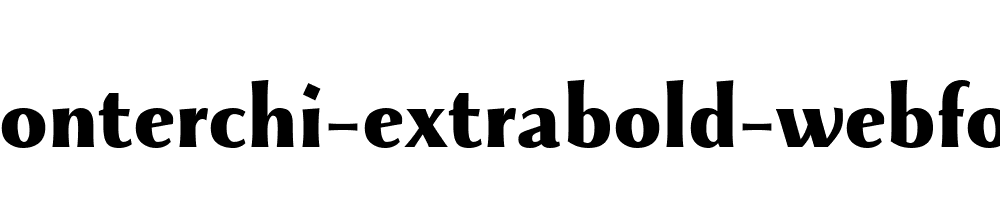
About monterchi-extrabold-webfont
The Monterchi Extrabold Webfont is a striking typeface designed by a skilled typographer. Its bold weight commands attention, making it perfect for headlines and branding purposes. The font features a modern and clean appearance, with well-defined characteristics such as sharp apexes and strong arms that give it a confident and assertive look. The font’s counters are open and spacious, adding to its readability and overall impact. The ascenders and descenders are balanced, providing a harmonious flow to the text. The font also has unique features like stylish serifs and elegant spurs that give it a sophisticated touch. Monterchi Extrabold Webfont falls under the category of Expressive and Rugged fonts, making it ideal for projects that require a bold and impactful visual statement. Its design is both modern and classic, striking a perfect balance between tradition and innovation. The font’s warm and friendly appearance makes it versatile and suitable for a wide range of applications. Whether used in print or digital design, Monterchi Extrabold Webfont is sure to leave a lasting impression.